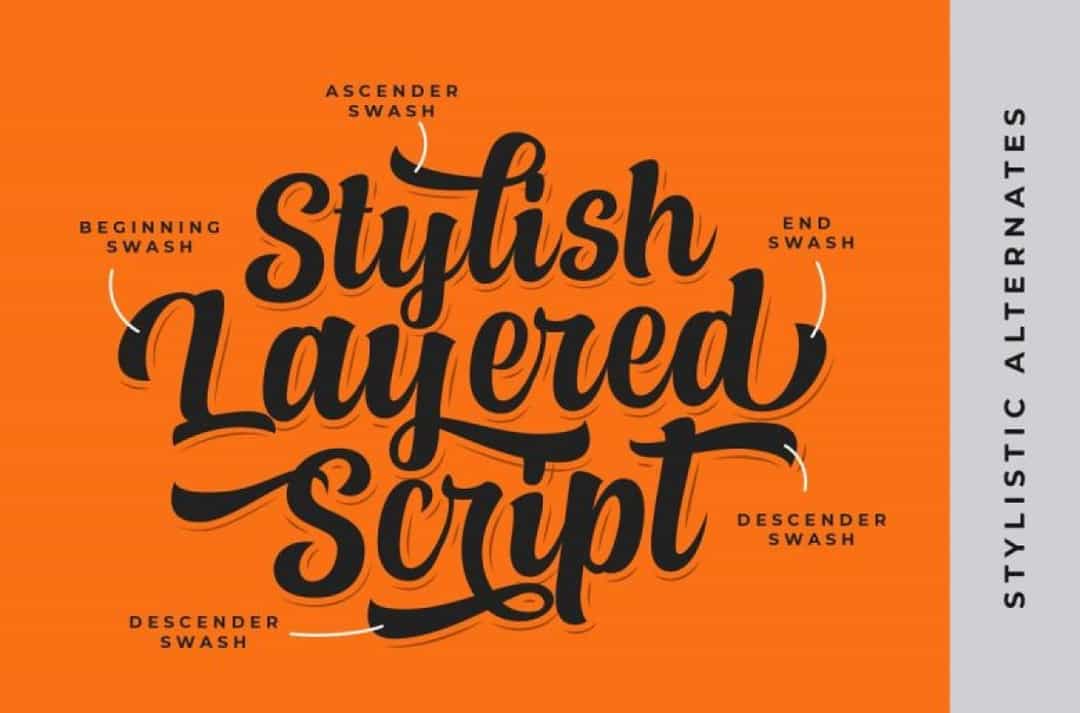
Alexandria Script Layered Font
Discover Alexandria Script Layered Font, part of the  Brush Calligraphy  Handwritten Graffiti collection—a versatile and unique font perfect for adding a personal touch to your projects. Download it for free and enjoy crafting designs with style, from invitations to social media posts. This font is available exclusively for personal use, giving you the freedom to create without limits. Unlock your creativity with Alexandria Script Layered Font today!
Alexandria Script has 4 fonts, the four fonts are used with layers method, so you can create interesting looking texts without worrying about how to make effect on it. This is the font that can be used for young and enthusiastic design, such as logo design, t-shirts, branding and many other designs.